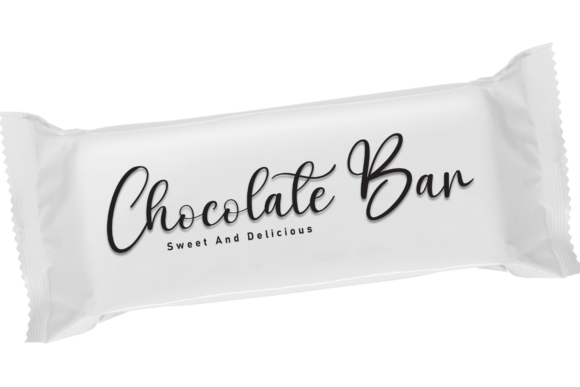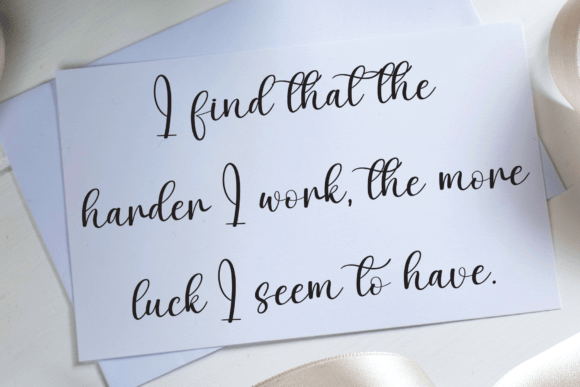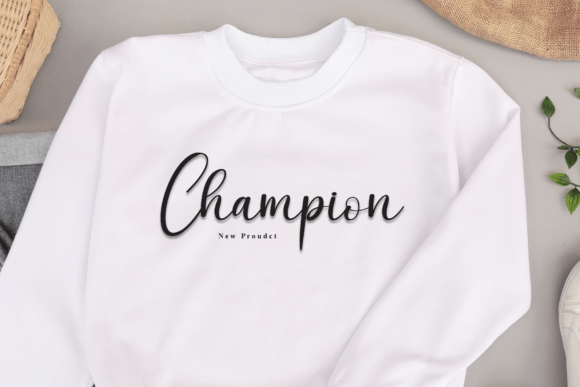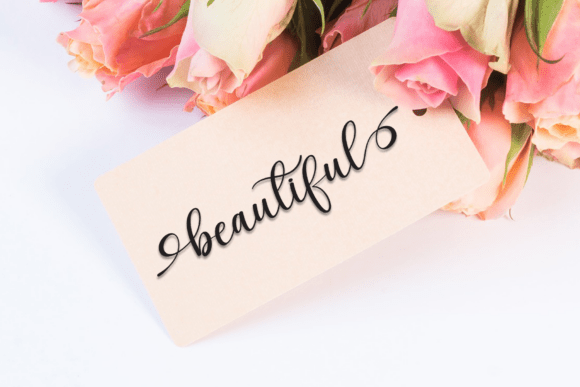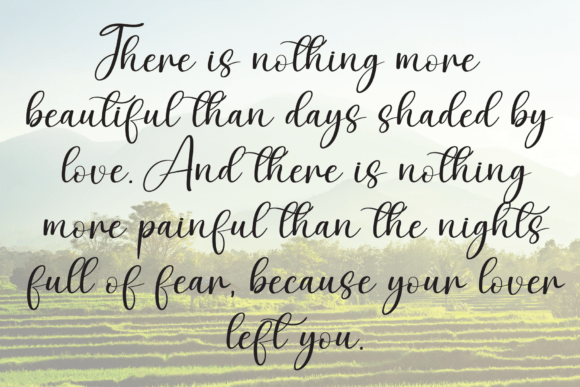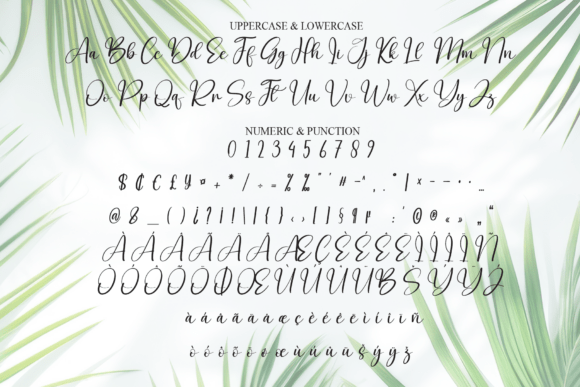
Introducing Bold Font: Elevate Your Designs with Elegance and Charm
Are you looking for a font that adds a touch of sophistication and refinement to your designs? Look no further than Bold Font, a stylish handwritten script font that exudes elegance and charm with its fluid, graceful strokes. Perfect for branding, invitations, and stationery, Bold Font is the ideal choice for designers and crafters seeking to create a lasting impression.
The Characteristics of Bold Font
Bold Font is a beautifully crafted handwritten script font that boasts smooth curves and a natural flow, creating a timeless, refined look for any design. Its fluid strokes and elegant letterforms make it perfect for a variety of applications, from luxury branding to wedding invitations and stationery. The font’s refined appearance adds a personal and sophisticated touch, making it an excellent choice for designers seeking to create unique and captivating designs.
Key Features of Bold Font
- Fluid and Graceful Strokes: Bold Font’s fluid strokes create a sense of movement and elegance, making it perfect for designs that require a touch of sophistication.
- Smooth Curves and Natural Flow: The font’s smooth curves and natural flow create a refined and timeless look, suitable for a wide range of design applications.
- Handwritten Script Style: Bold Font’s handwritten script style adds a personal touch to any design, making it ideal for branding, invitations, and stationery.
- Elegant and Refined Appearance: The font’s elegant and refined appearance makes it perfect for designers seeking to create sophisticated and captivating designs.
Using Bold Font for Branding
When it comes to branding, Bold Font is an excellent choice for creating a luxurious and sophisticated image. Its elegant letterforms and fluid strokes make it perfect for logos, business cards, and other branding materials. By using Bold Font, designers can create a cohesive and refined brand identity that exudes elegance and charm.
Creating Invitations and Stationery with Bold Font
Bold Font is also perfect for creating invitations and stationery, such as wedding invitations, greeting cards, and letterheads. Its refined appearance and elegant letterforms make it an excellent choice for designers seeking to create unique and captivating designs. Whether you’re designing for a special occasion or everyday use, Bold Font adds a touch of sophistication and refinement to any design.
Tips for Using Bold Font Effectively
- Pair with Simple Backgrounds: Bold Font looks best when paired with simple backgrounds that allow the font’s elegant letterforms to take center stage.
- Use for Headings and Titles: Bold Font is perfect for headings and titles, where its fluid strokes and elegant letterforms can make a lasting impression.
- Experiment with Colors: Bold Font looks great in a variety of colors, so don’t be afraid to experiment and find the perfect shade to match your design.
In conclusion, Bold Font is a stylish handwritten script font that exudes elegance and charm with its fluid, graceful strokes. Perfect for branding, invitations, and stationery, it adds a personal and sophisticated touch to any design. With its smooth curves and natural flow, Bold Font creates a timeless, refined look that is sure to captivate audiences. Whether you’re a designer or crafter, Bold Font is an excellent choice for creating unique and sophisticated designs.